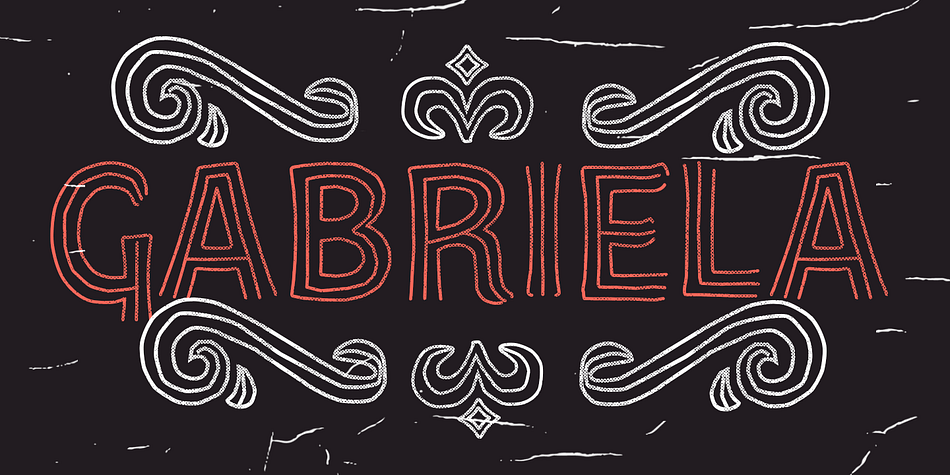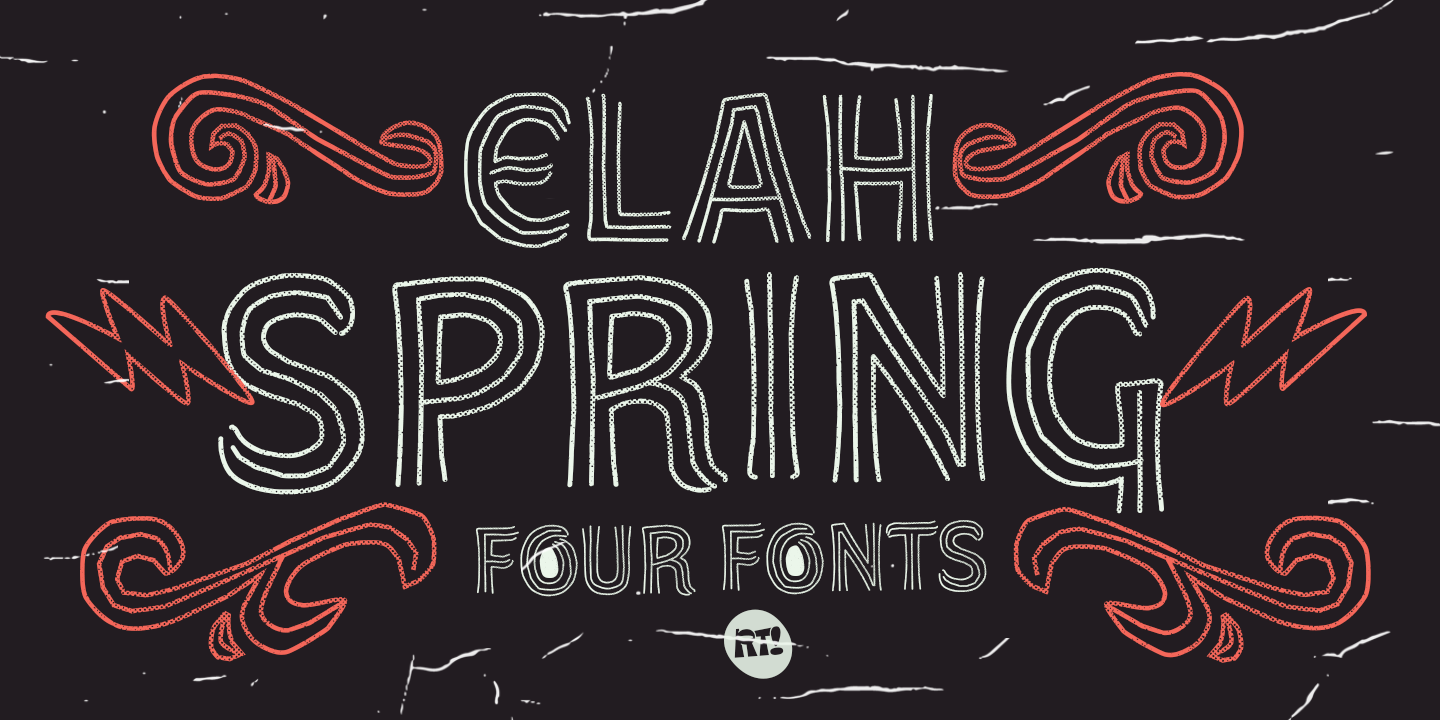
ELAH SPRING
Designed by Rodrigo Araya Salas and Bruno Jara, Elah Spring is a display sans, hand display and dingbat font family. This typeface has four styles and was published by Rodrigo Typo.
This is a more artistic version of “Elah Pro”
containing Regular and alternative version
as well as Dingbats and Ornaments